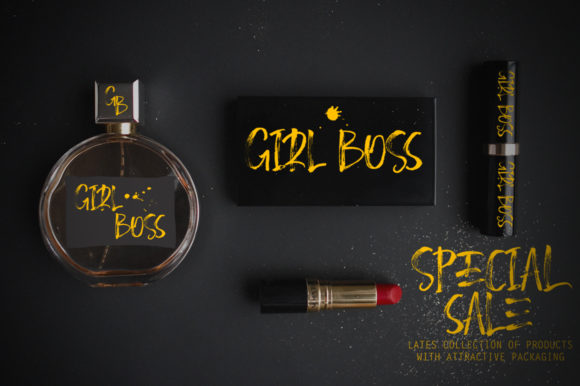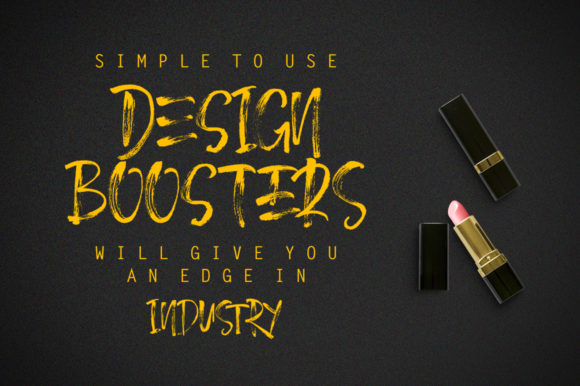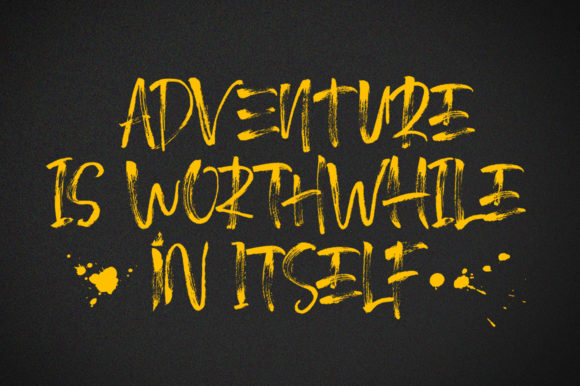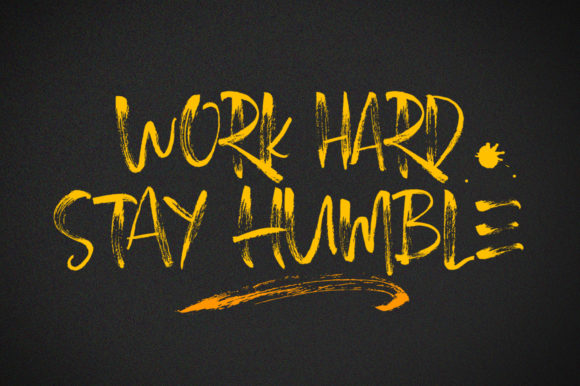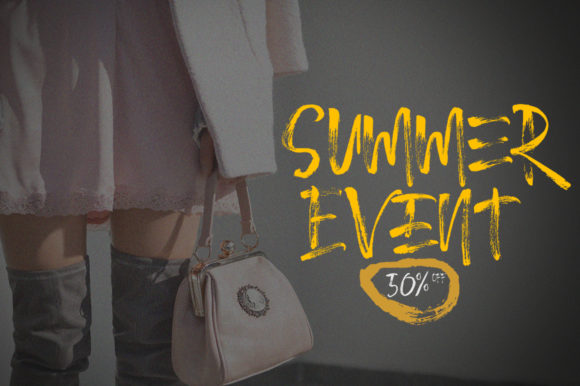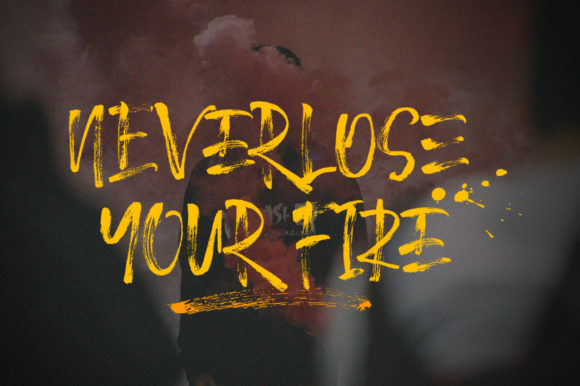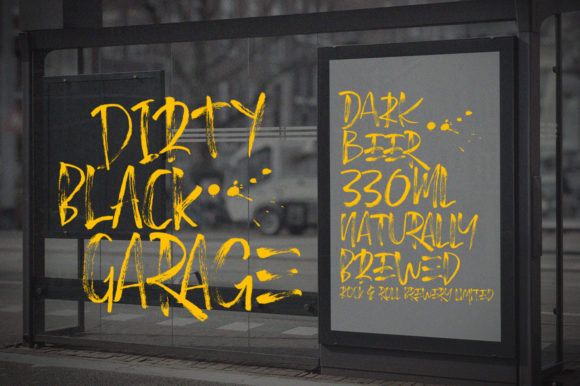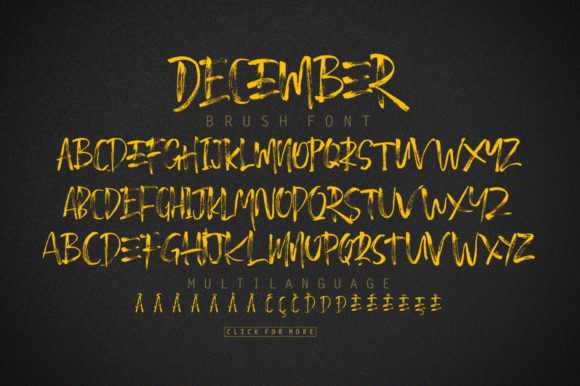
December Brush Font
About December Brush Font
December Brush is a natural handwritten font full of energy and authenticity. Get inspired by its unique charm, and turn any design project into a true standout!